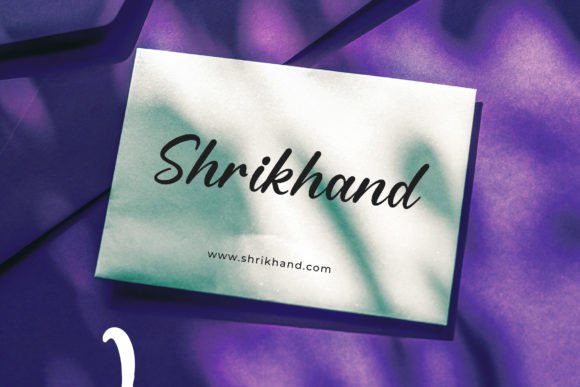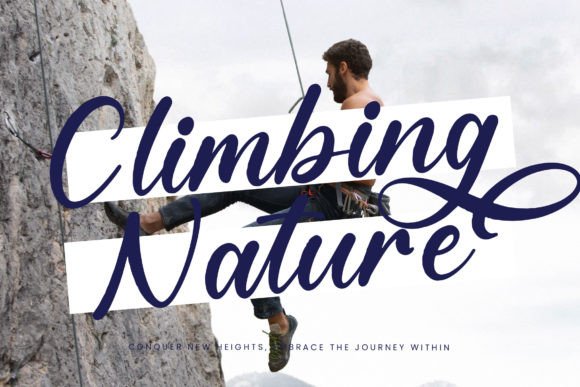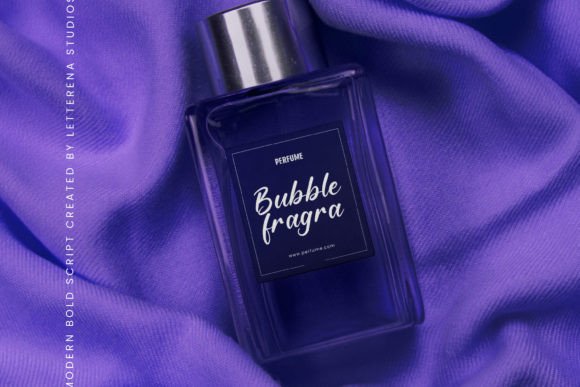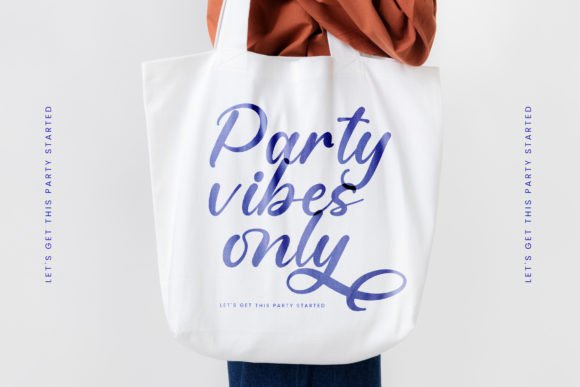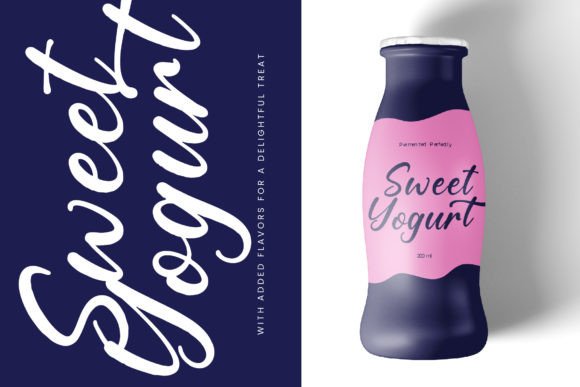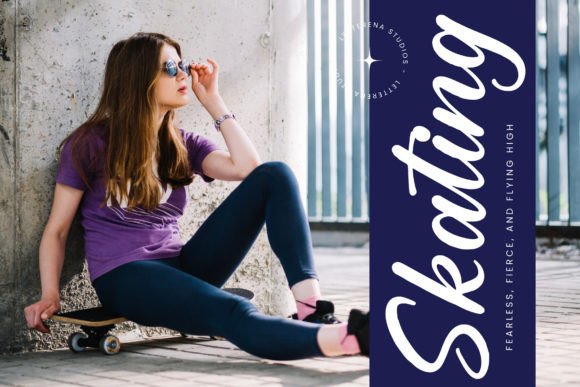
Unlock the Magic of Luxury Script Design
Have you ever been brainstorming a new project, and suddenly, a spark of inspiration hits you? Maybe it’s a quirky idea for a logo, or a bold concept for a product packaging. Whatever it is, that ‘aha’ moment is what drives us creatives forward. For designers looking to elevate their luxury and beautiful projects, Bright Mystic Font is here to ignite that spark. This stunning Modern Bold Script font, crafted by Letterena, is perfect for logos, branding projects, and so much more.
What makes Bright Mystic Font truly valuable for designers is its versatility and sophistication. With its elegant, cursive style, it adds a touch of luxury to any project, from homeware designs to photography. Whether you’re working on a high-end branding project or a special event invitation, Bright Mystic Font is sure to make a lasting impression. As a Luxury Script font, it’s an essential tool for any designer looking to add a touch of sophistication to their work.
Bright Mystic Font Key Features
- Font Family: Bright Mystic Font is a unique, hand-drawn font designed for creative and mystical purposes. It features a mix of elegant and quirky elements.
- Unique Characteristics: Bright Mystic Font features intricate details, including swashes, flourishes, and ornaments, which can add an extra layer of mysticism to your designs.
Bright Mystic Font Review
✨ I must say, the Bright Mystic Font has some amazing qualities that make it a great addition to any design project. The first thing that caught my eye was the elegant and mystical vibe it gives off, perfect for spiritual or wellness-related themes. The font’s curves and lines are smooth and refined, making it easy to read and visually appealing.
✨ Another thing that I appreciate about the Bright Mystic Font is its versatility. It can be used for both headings and body text, and it looks great in a variety of contexts, from digital interfaces to print materials. The font also has a range of weights and styles, making it easy to customize and match with other design elements.
- ⚠️ The Bright Mystic Font may not be the best choice for projects that require a more modern or edgy look. The font’s mystical and elegant vibe may not fit with a more contemporary aesthetic.
- ⚠️ Some users may find the font’s curves and lines to be a bit too elaborate, making it difficult to read at small font sizes.
Overall, I think the Bright Mystic Font is a great choice for designers who want to add a touch of elegance and mysticism to their projects. While it may not be suitable for every project, it’s definitely worth considering for themes that require a more refined and spiritual vibe.
Bright Mystic Font is ideal for:
- Designing invitations and event materials
- Creating digital art and graphics
- Developing branding and marketing materials